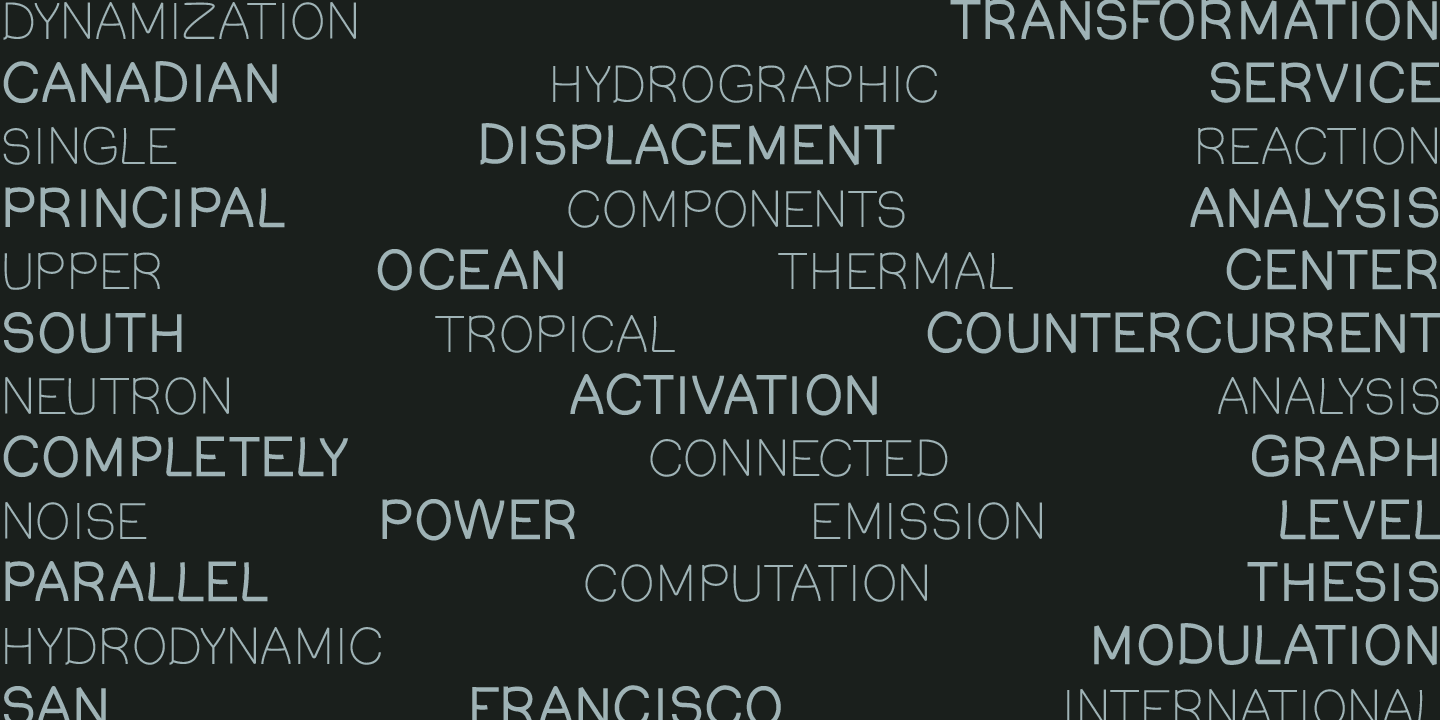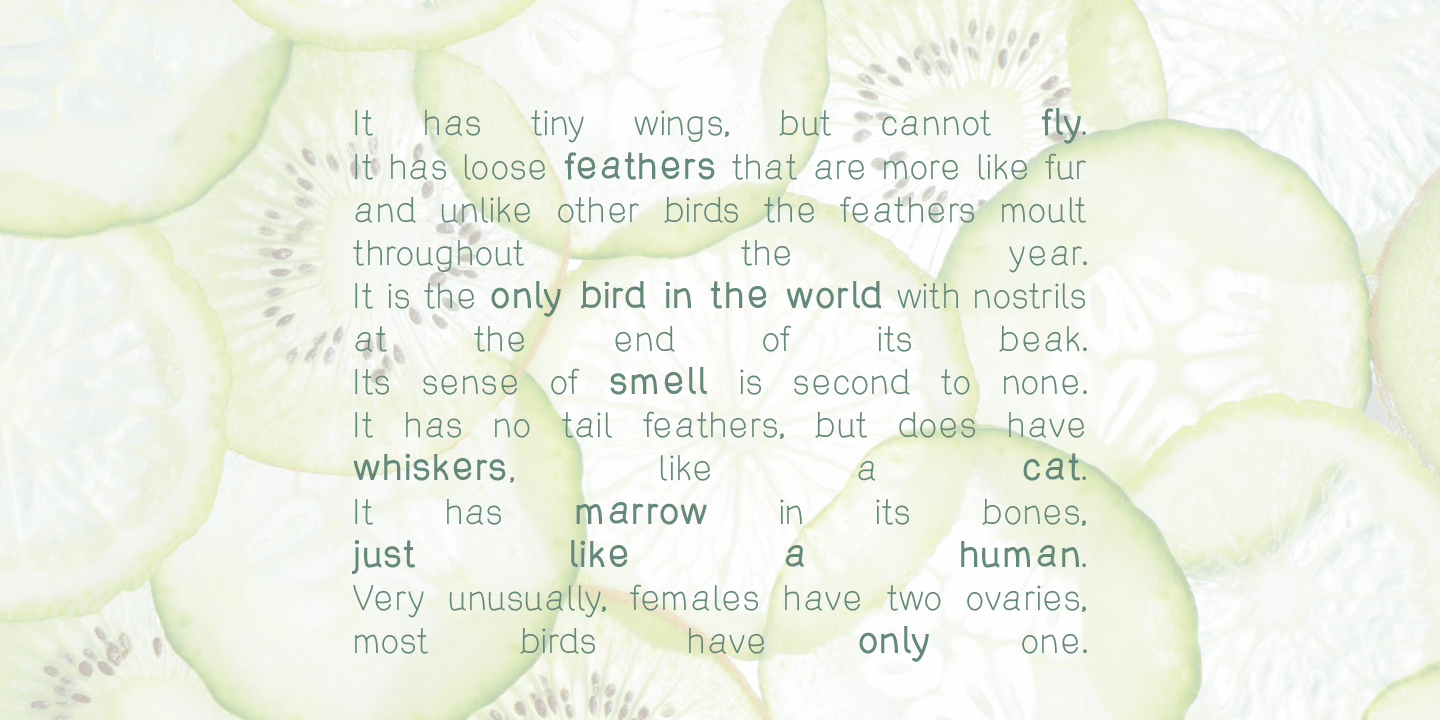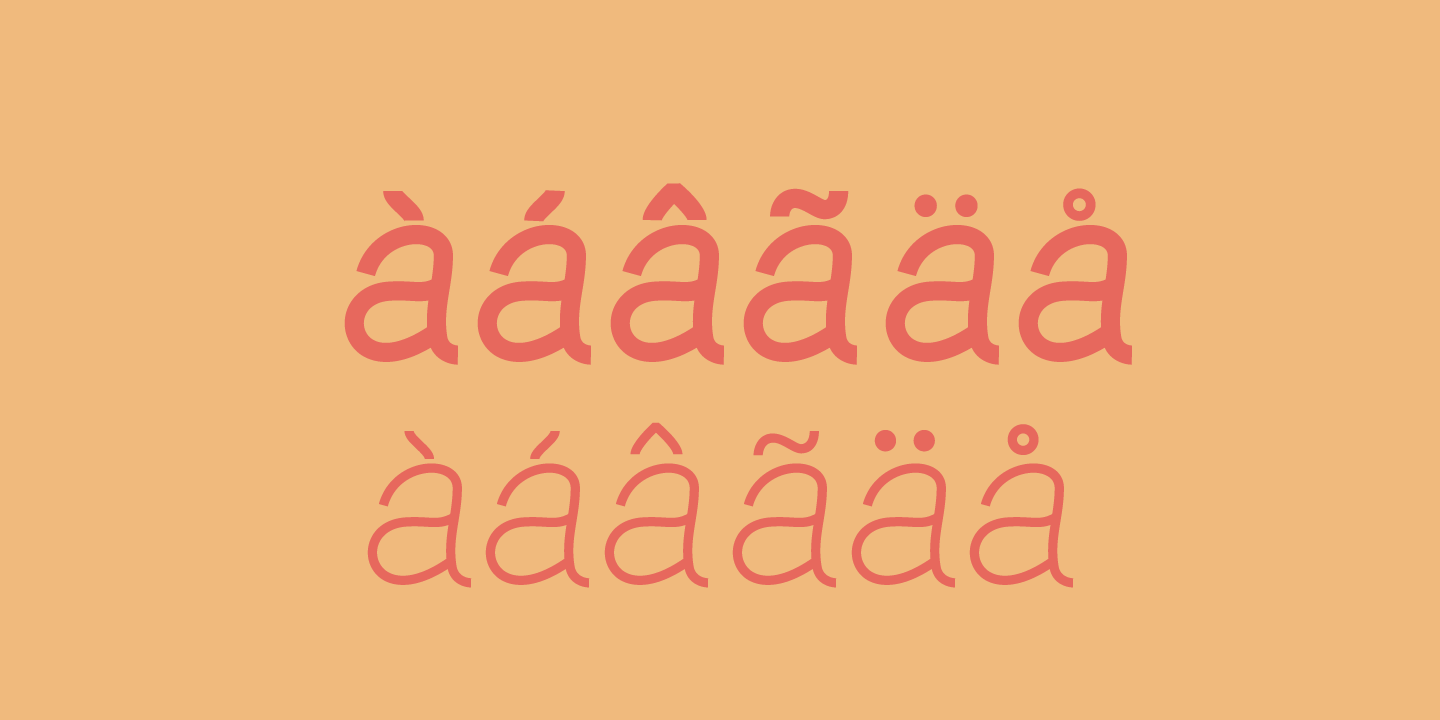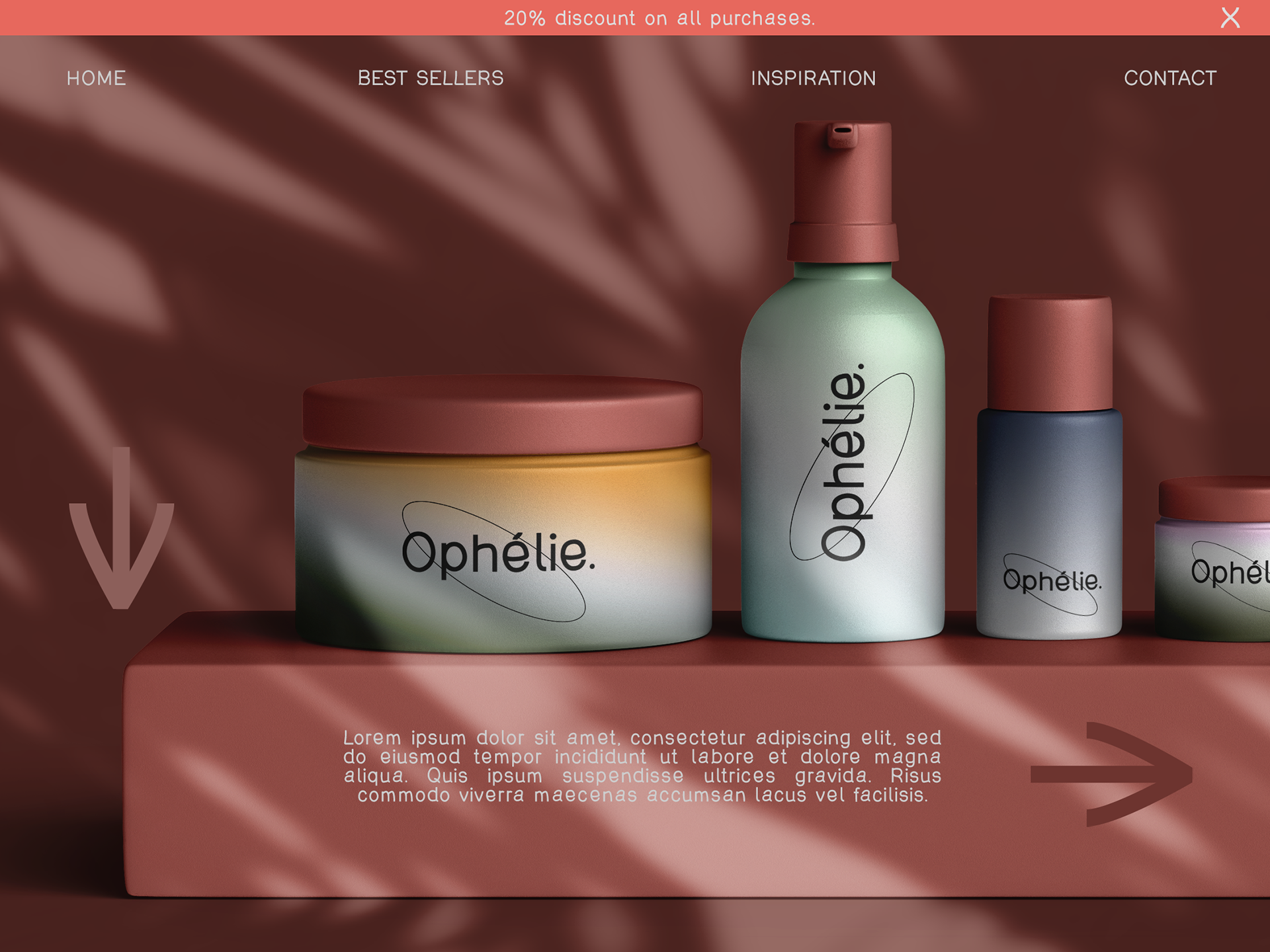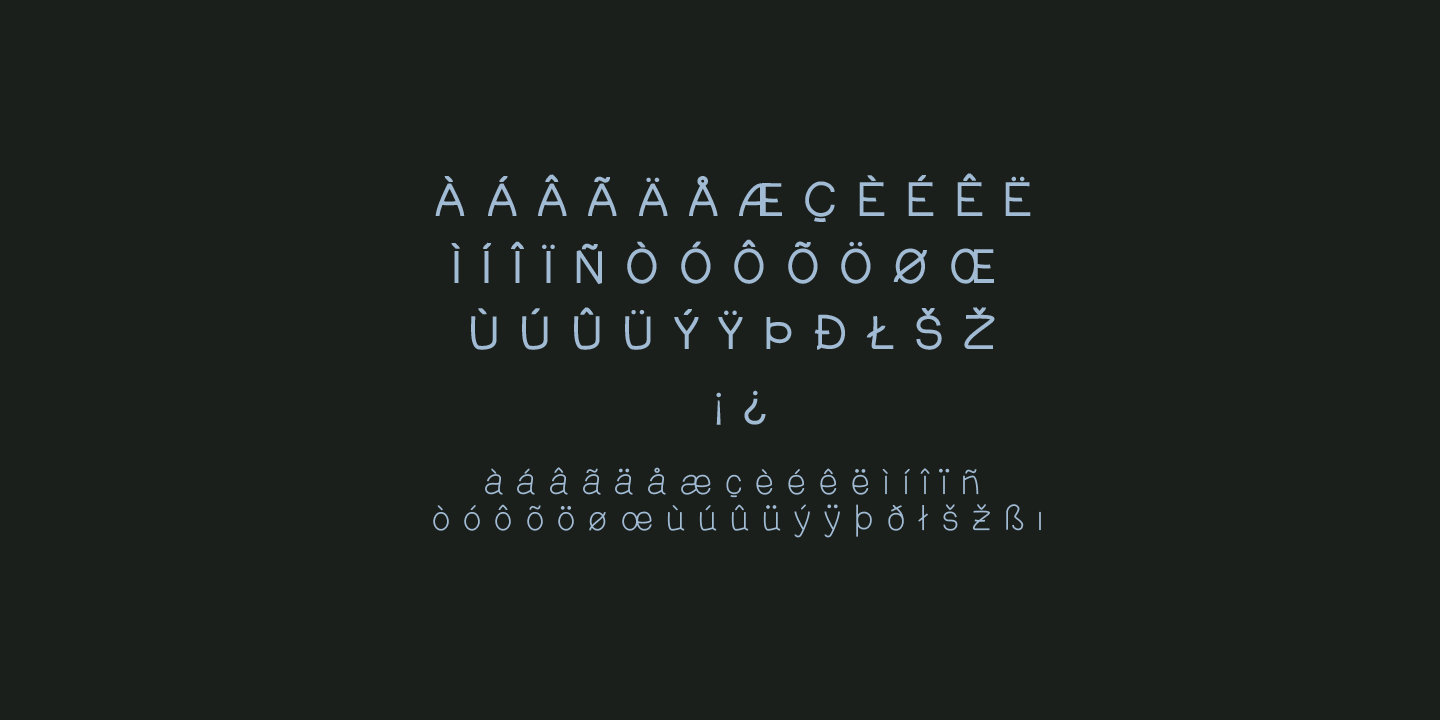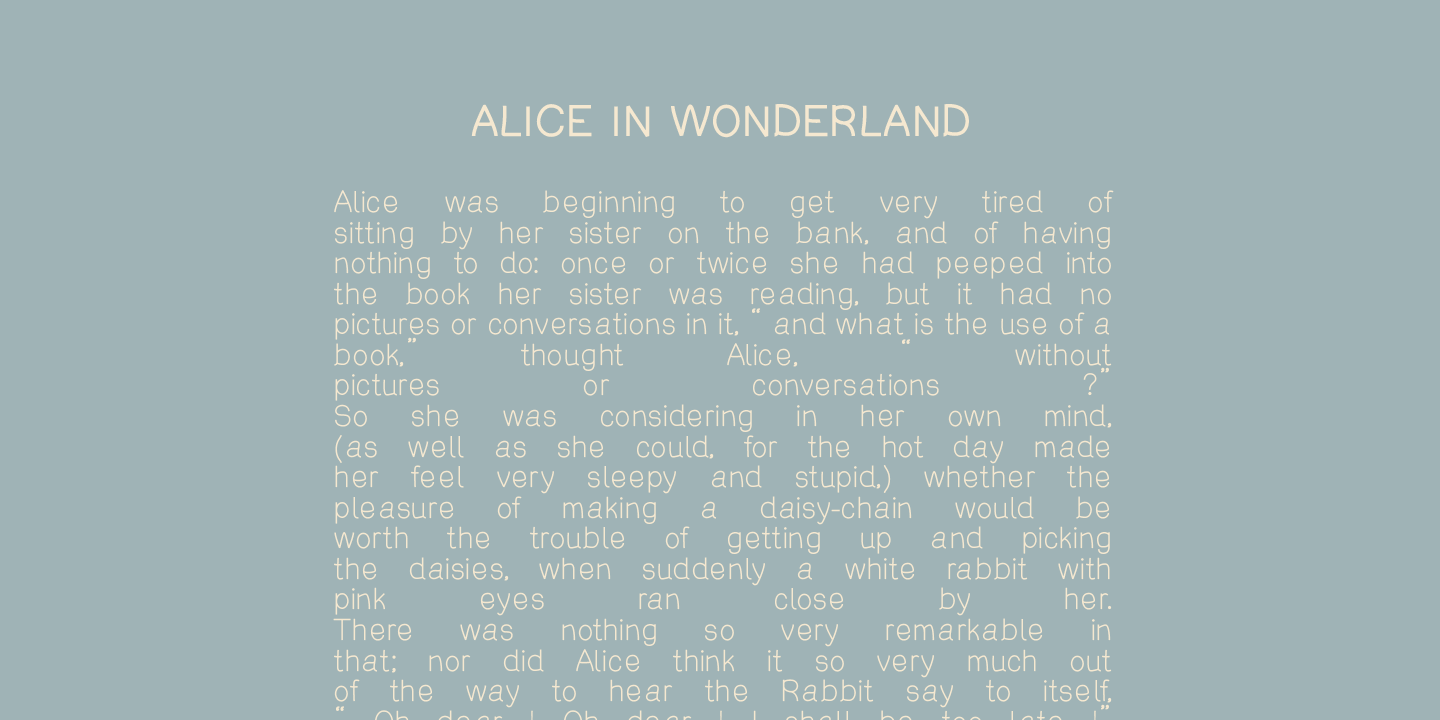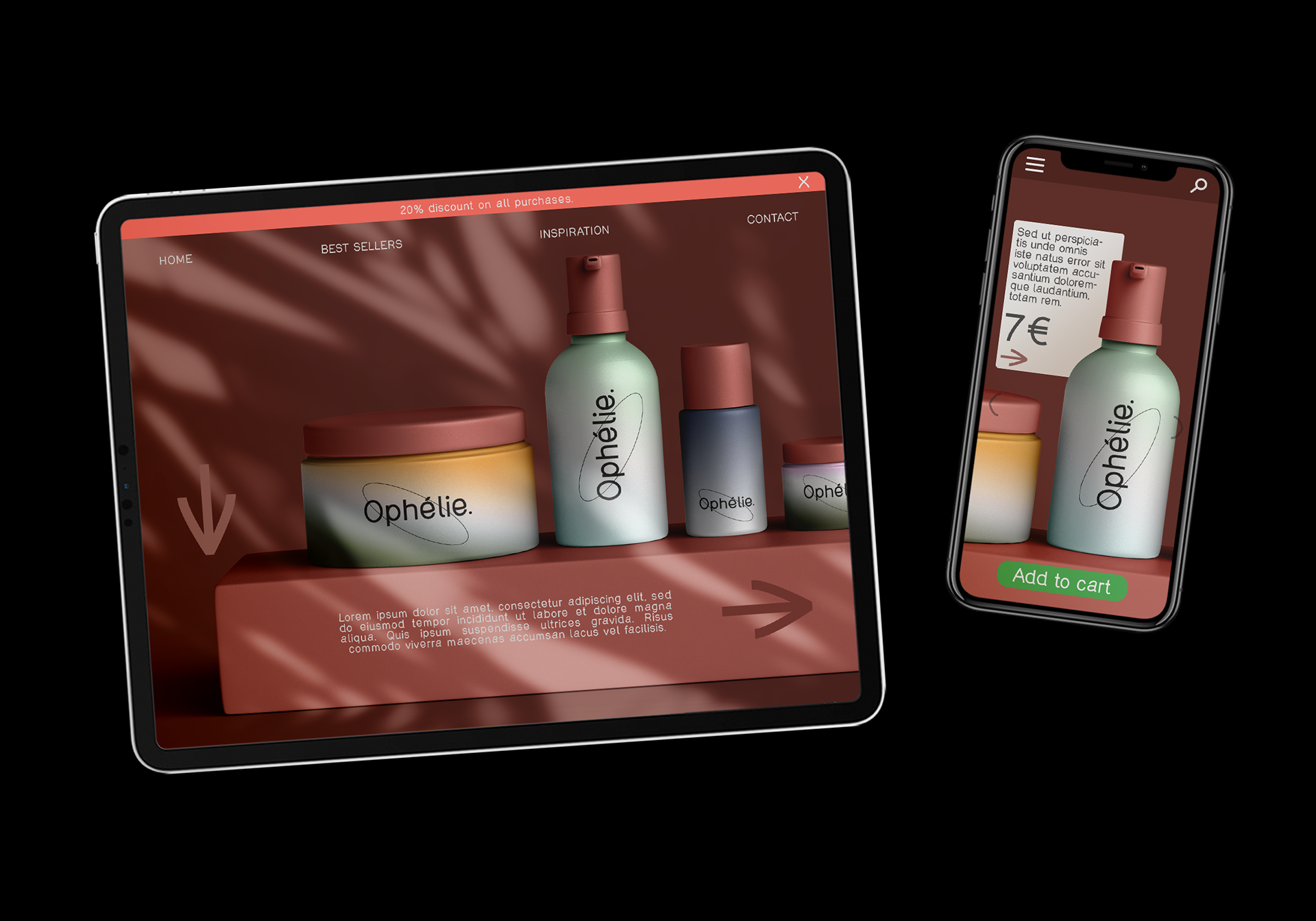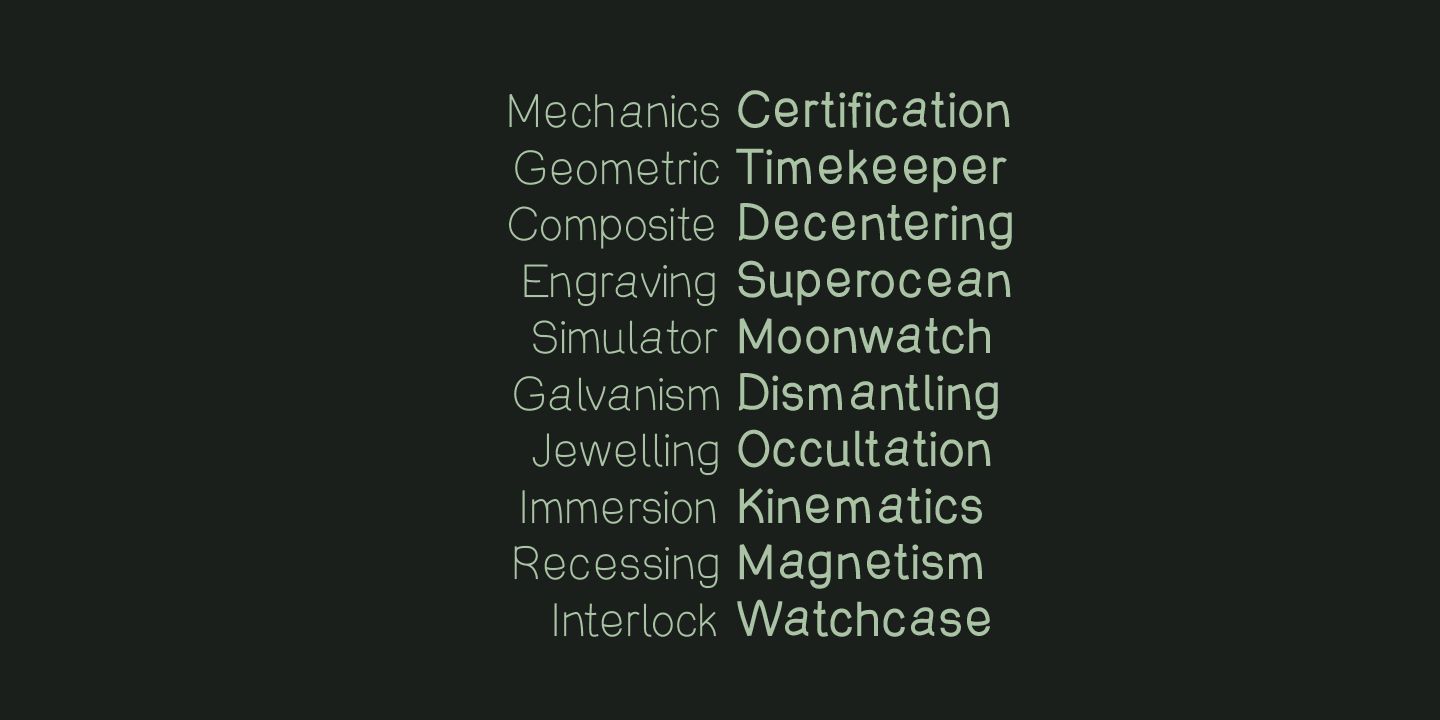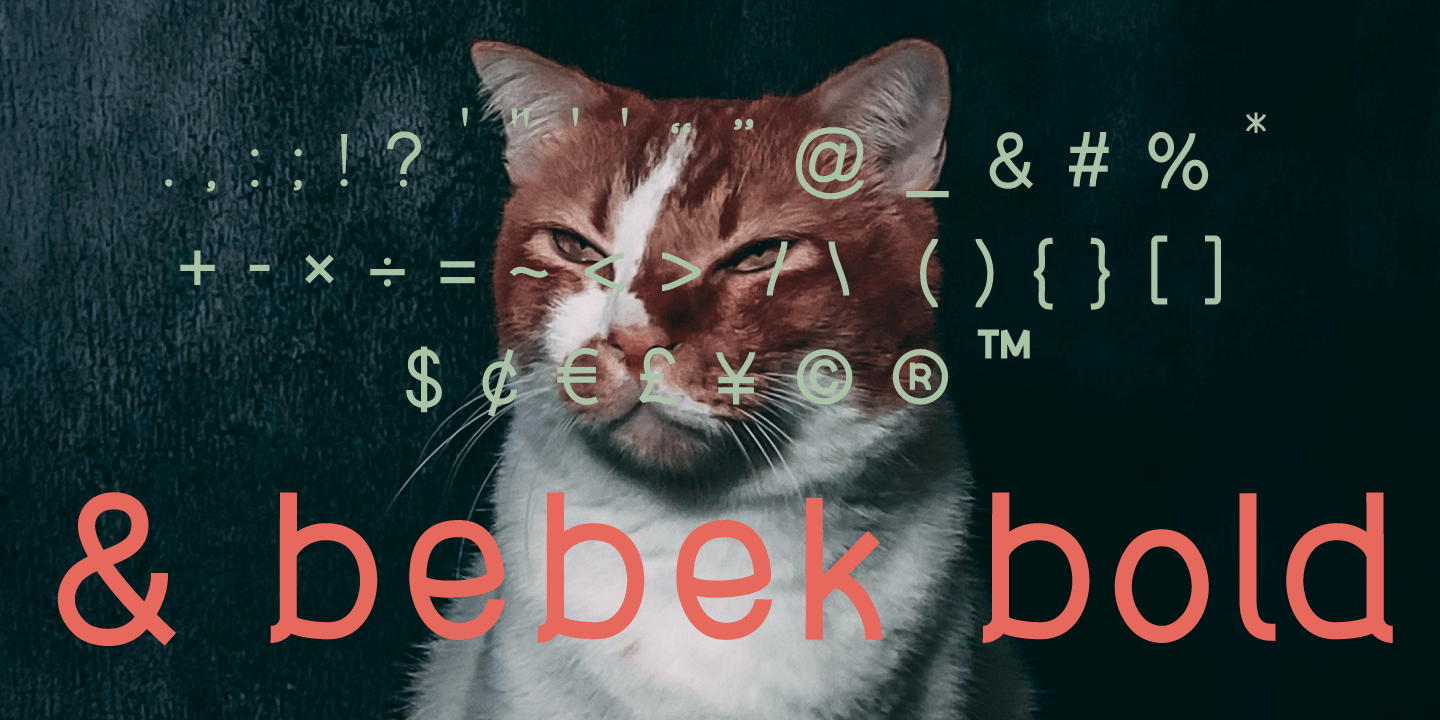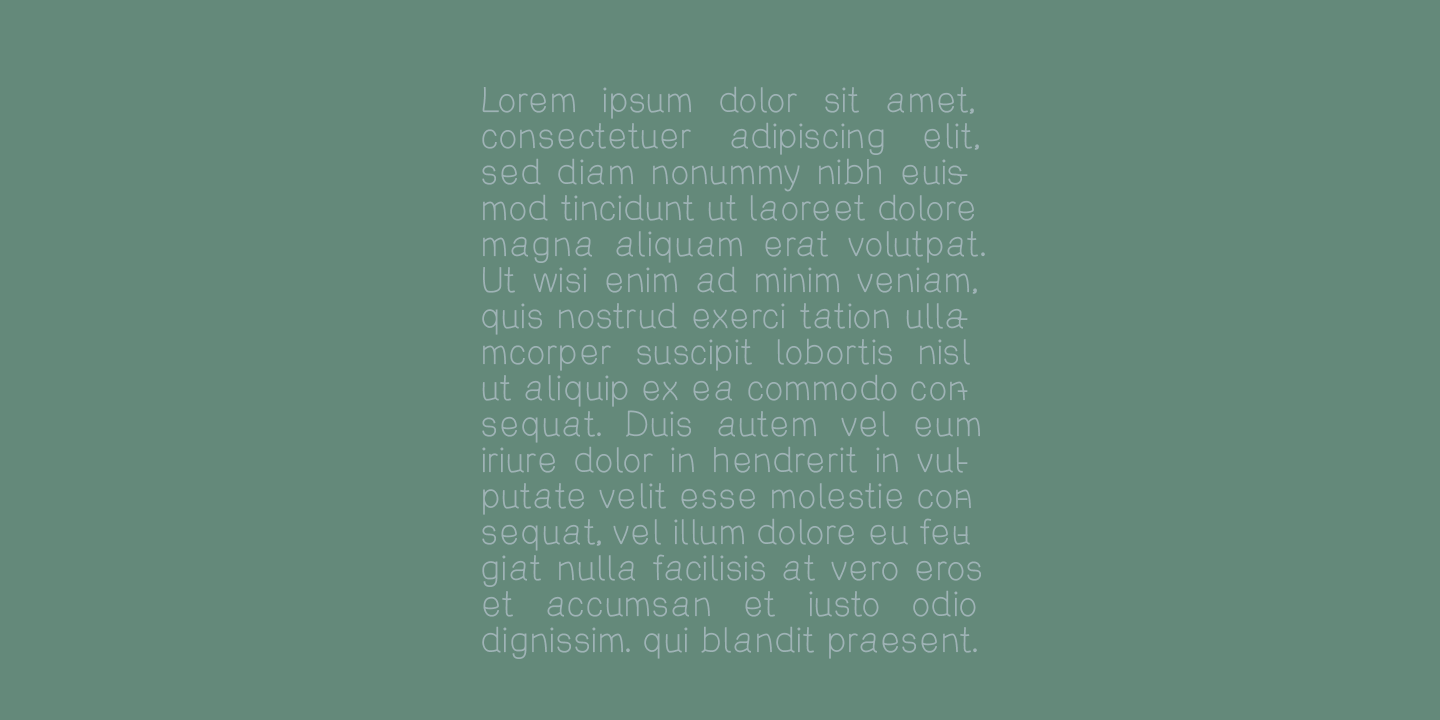
Bebek is drawn on a classic geometric sans serif skeleton but applies baby moves. 'Bebek' gets its name from the Turkish word 'baby' because the font is as cute as a baby and full of surprises.
Suggested uses: perfect for modern branding and logo design, editorial design, web design, packaging, and countless other projects.